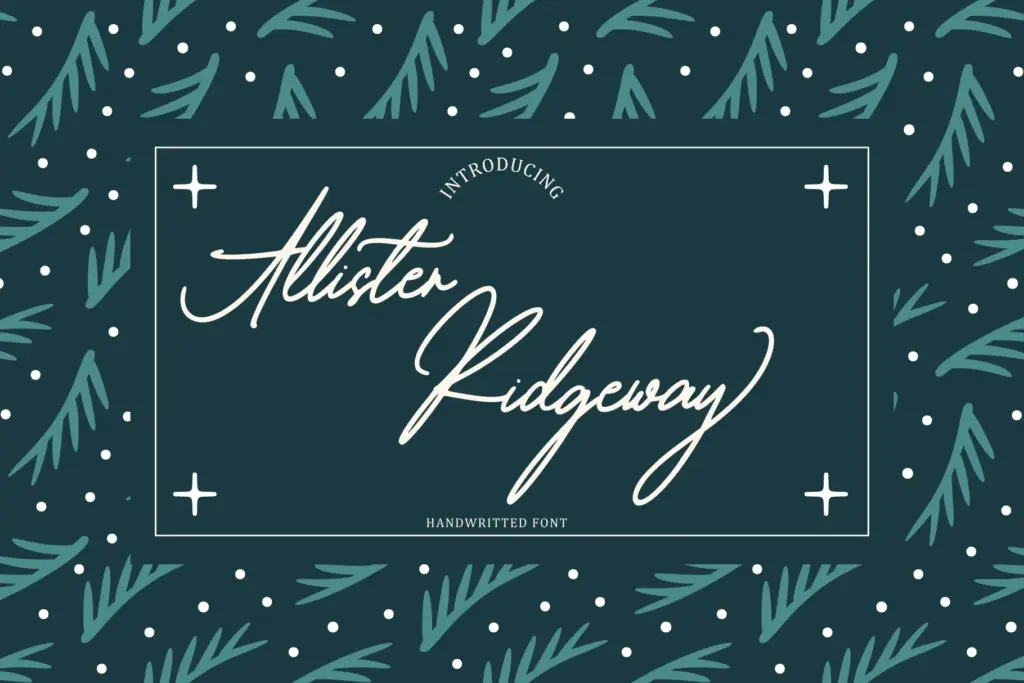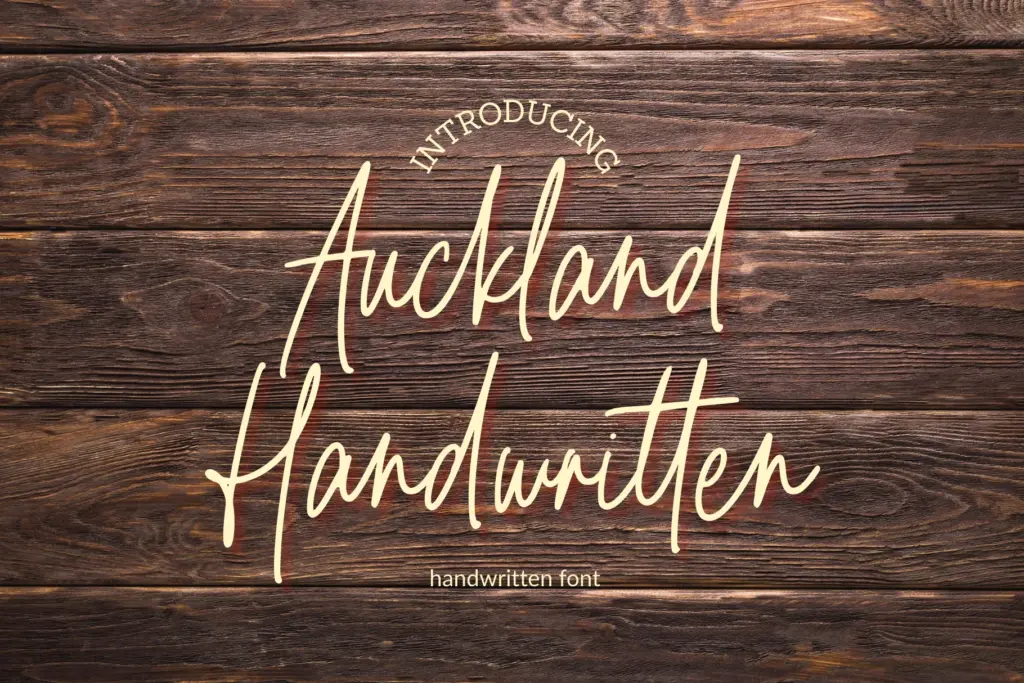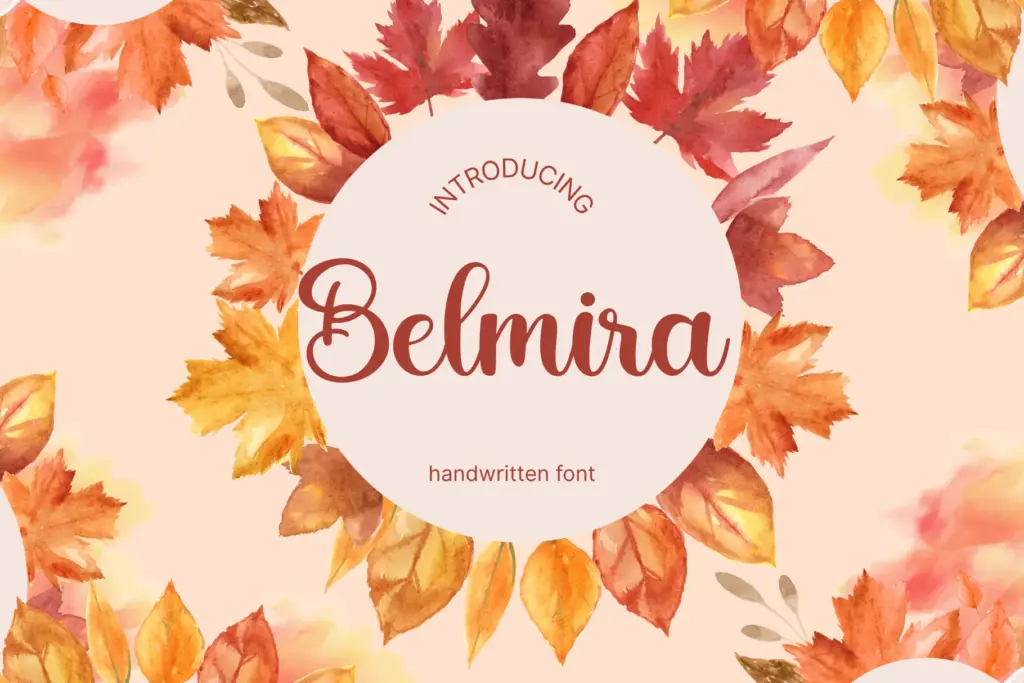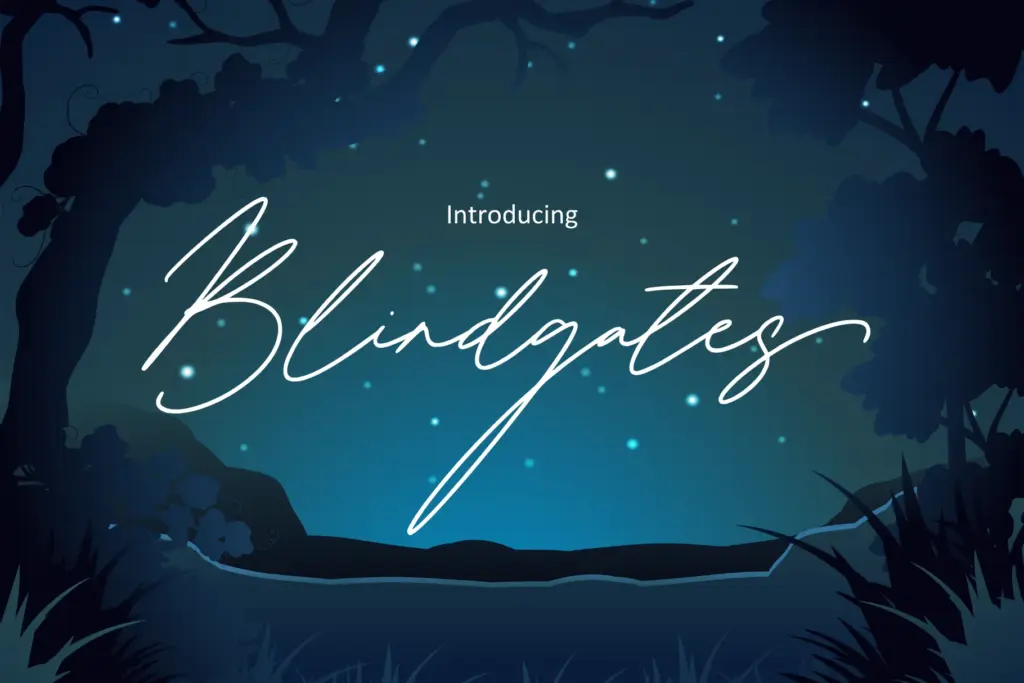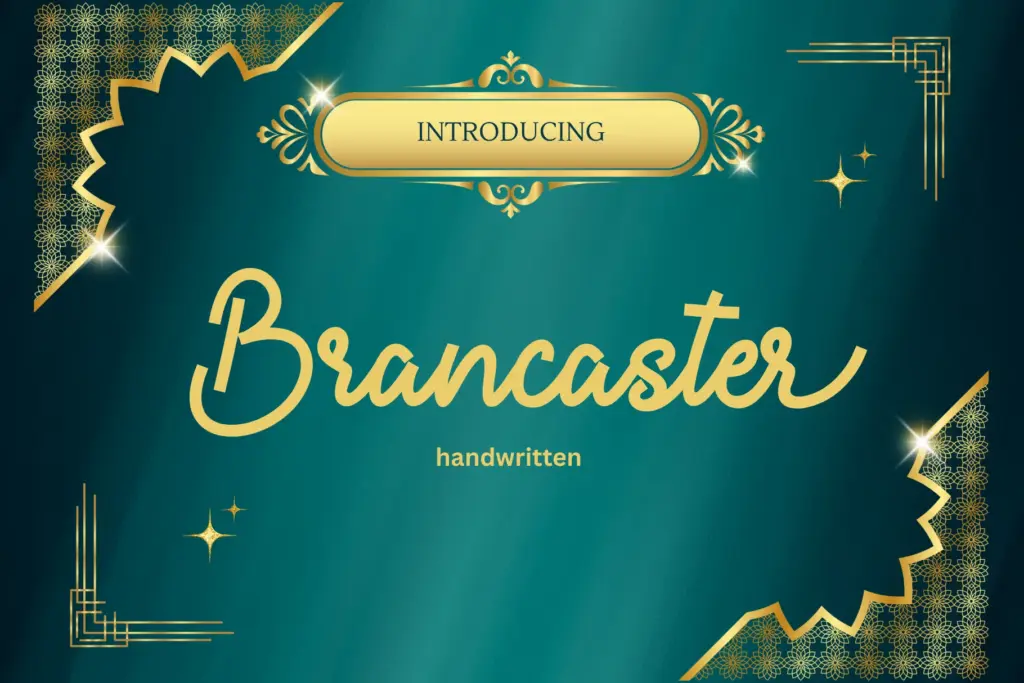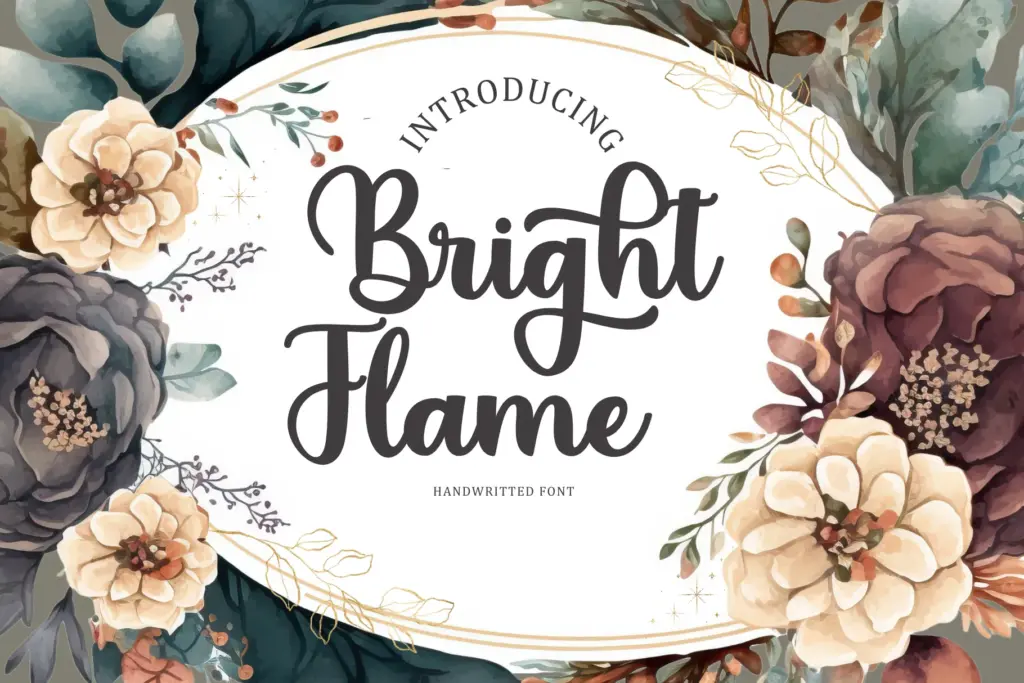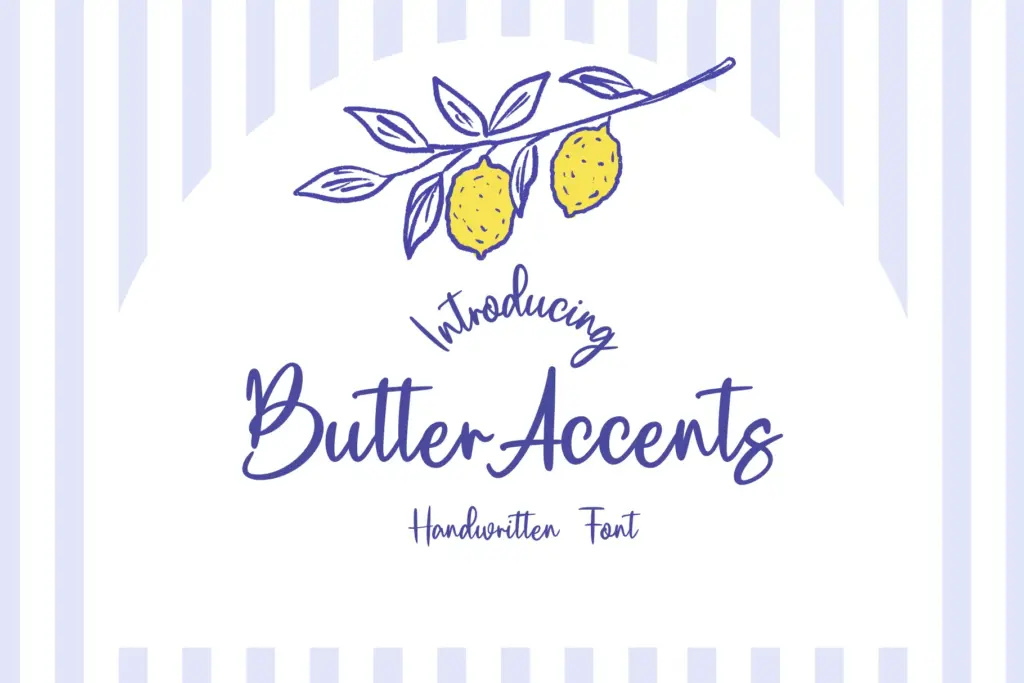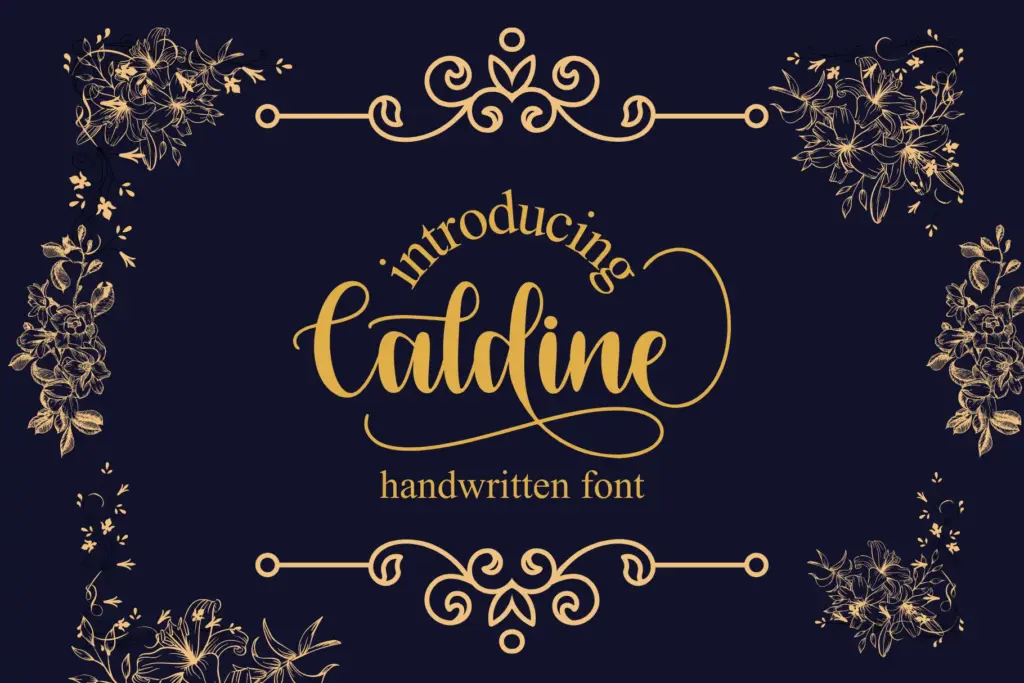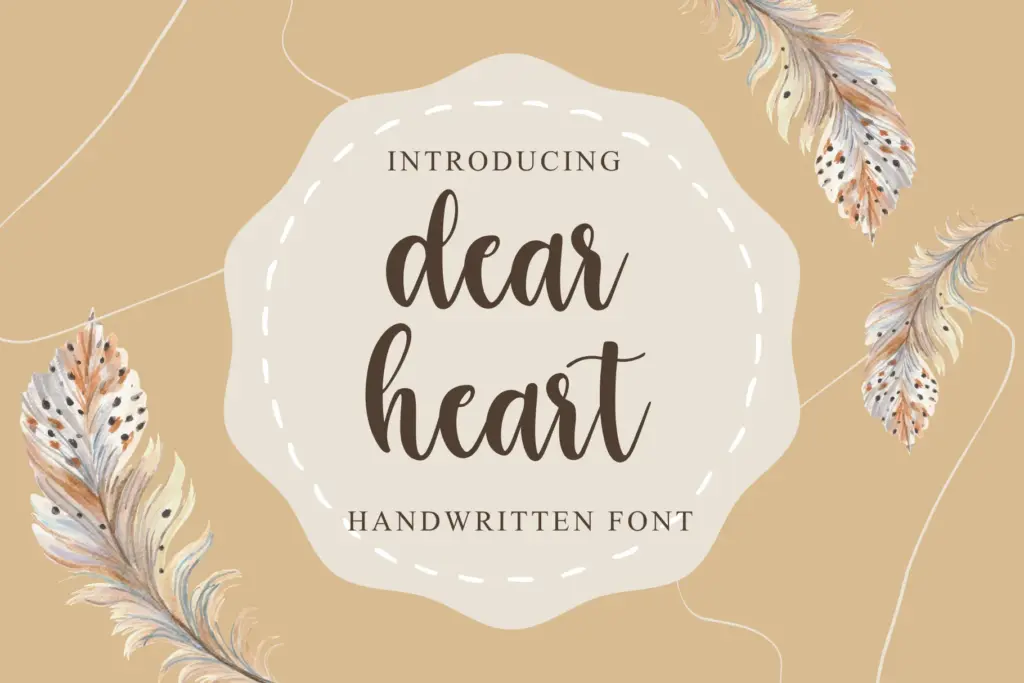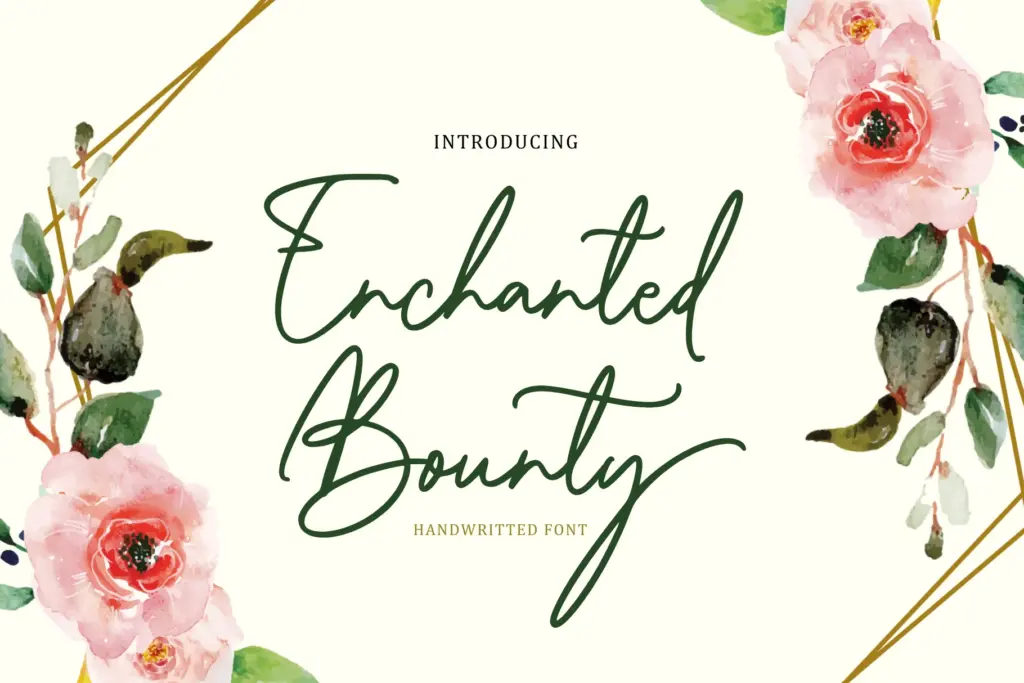
Bring a warm, human touch to your creative projects & refine your visual identity with –
20 Handwritten-Style Fonts Bundle
These fonts blend with Elegant, Playful, Modern, & Organic aesthetics.
They include Font Glyphs & Clean Letterforms, allowing you to customize your typography to match the personality of any project.
- Categories Included: Handwritten, Script, & Signature
- Styles Of Fonts Included: Romantic, Bold, Casual, & Minimalist
This Handwritten-style Fonts Collection Includes:
- Allister Ridgeway Font
- Auckland Handwritten Font
- Belmira Font
- Blindgates Font
- Brancaster Font
- Bright Flame Font
- Butter Accents Font
- Caldine Font
- Dear Heart Font
- Enchanted Bounty Font
- Meadow Font
- Note Worthy Font
- November Thirty Letters Font
- Paris Croissant Font
- Pinestand Font
- Ridgewood Font
- Sageletter Font
- Sunday Softberry Font
- Take Charge Font
- The Bellerose Typeface Font
A Preview Of The Handwritten-Style Fonts Bundle: